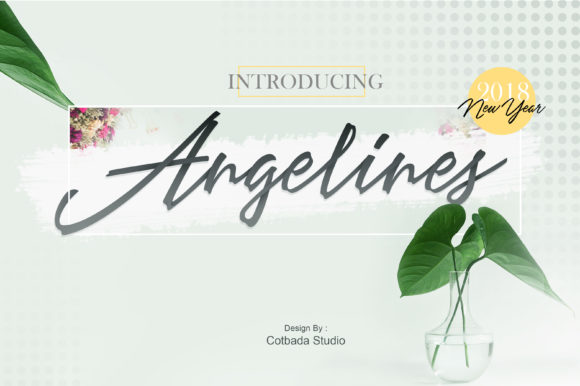
The Magic of Angelines Script Font: A Designer’s Delight
I’ll never forget the time I was working on a project for a client’s wedding invitation. I had the design all planned out, but something was missing – the perfect font. I scoured the internet, tried out countless fonts, but none seemed to capture the elegance and whimsy I was looking for. That was until I stumbled upon Angelines Script Font. ✨ It was love at first sight!
Angelines Script is a beautiful handmade script font that will put that special spark on any design project. Its authentic charm and unique character make it perfect for designers, crafters, and creative hobbyists looking to add a touch of personality to their work.
• 💫 Unique and authentic handmade script feel
• ✅ Highly legible and versatile
• 🎨 Perfect for a variety of design projects, from wedding invitations to branding and packaging
• 🖌️ Beautifully crafted with attention to detail
• ⚠️ Some characters may not work well in all contexts, requiring manual kerning
• 🤔 Limited availability of certain OpenType features in certain software
The Story Behind Angelines Script
Angelines Script was designed with love and care by a talented type designer who wanted to create a font that would capture the essence of handmade scripts. Inspired by traditional calligraphy and lettering, Angelines Script is a unique and authentic font that is sure to add a touch of personality to any design project.
Is Angelines Script suitable for body text? While Angelines Script is highly legible, it’s best suited for headlines, titles, and short paragraphs. For longer body text, a serif font might be more suitable.